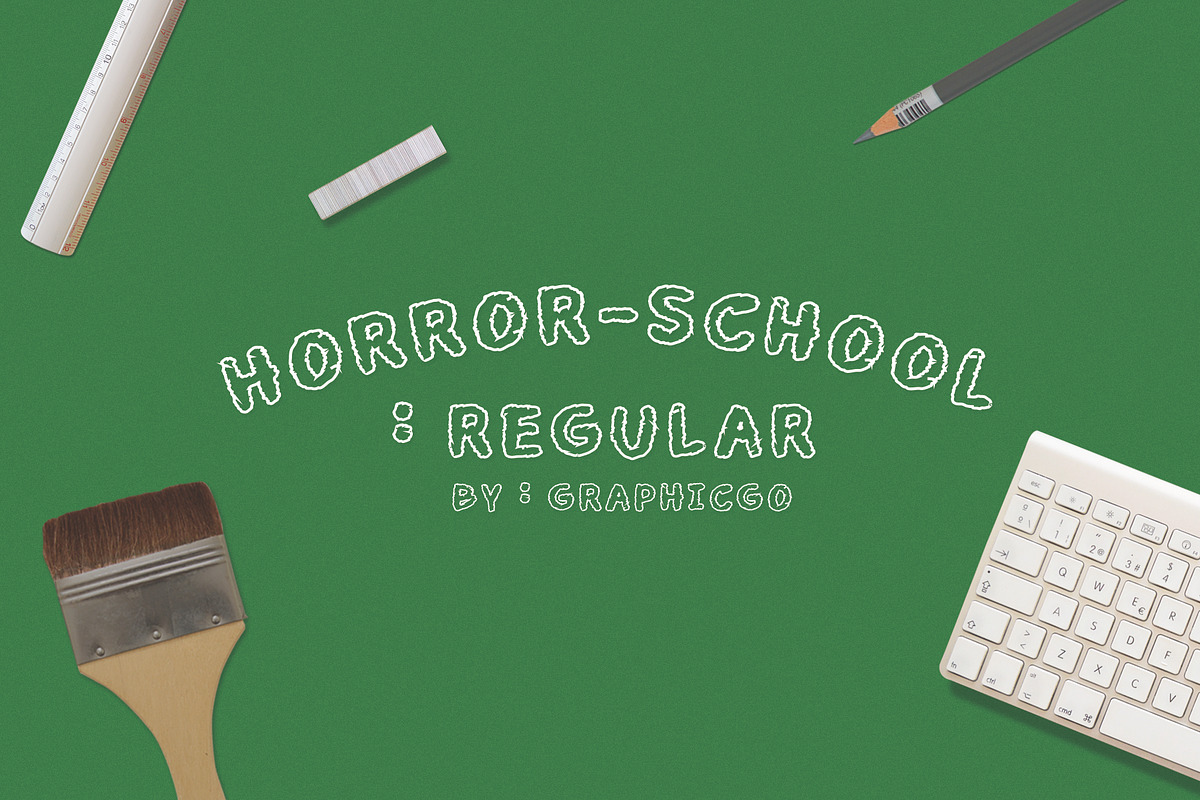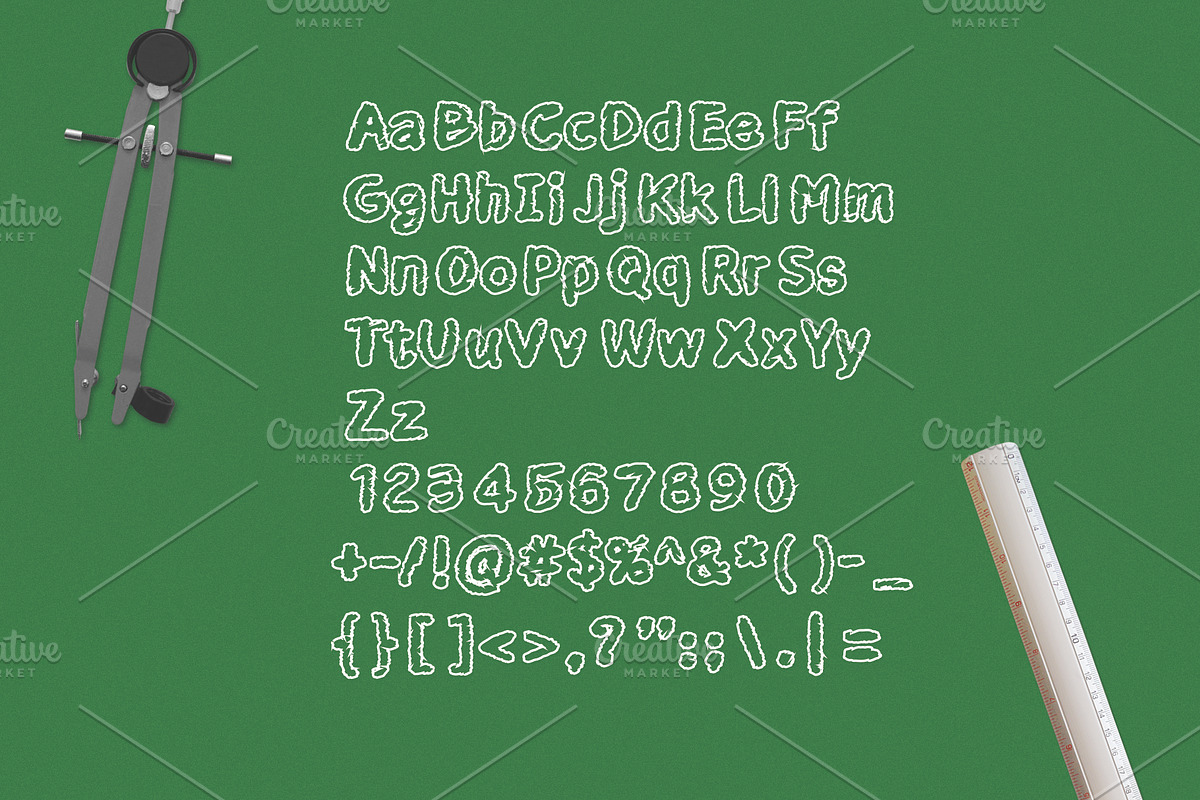
Horror School Font
Horror School Font is bubble brush writing style. It 's perfect for any kid products, cards, posters, wall art, branding, diy projects, greeting cards, labels, quotes, packaging, websites and much more.
Uppercase and Lowercase
Horror School Font by Graphicgo fits naturally into Branding, posters, packaging, typography.